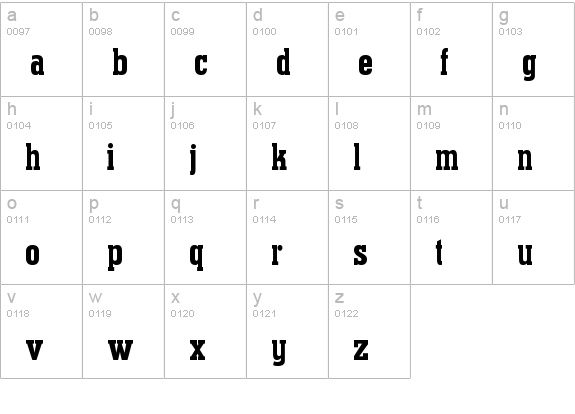
Luxor Font Details
Luxor font is a stunning display typeface that exudes elegance and sophistication. Its sleek lines and modern design make it perfect for a wide range of projects, from branding to editorial design. The sharp, clean letterforms of Luxor font give any text a polished and professional look. What makes Luxor font even more appealing is that it is available for free download at FontsMarket.com. This means that you can easily access this beautiful typeface and use it in your creative projects without any cost. Whether you are designing a logo, creating a poster, or working on a website, Luxor font is sure to add a touch of class and style to your work. Download Luxor font today and elevate your designs with this exquisite typeface.